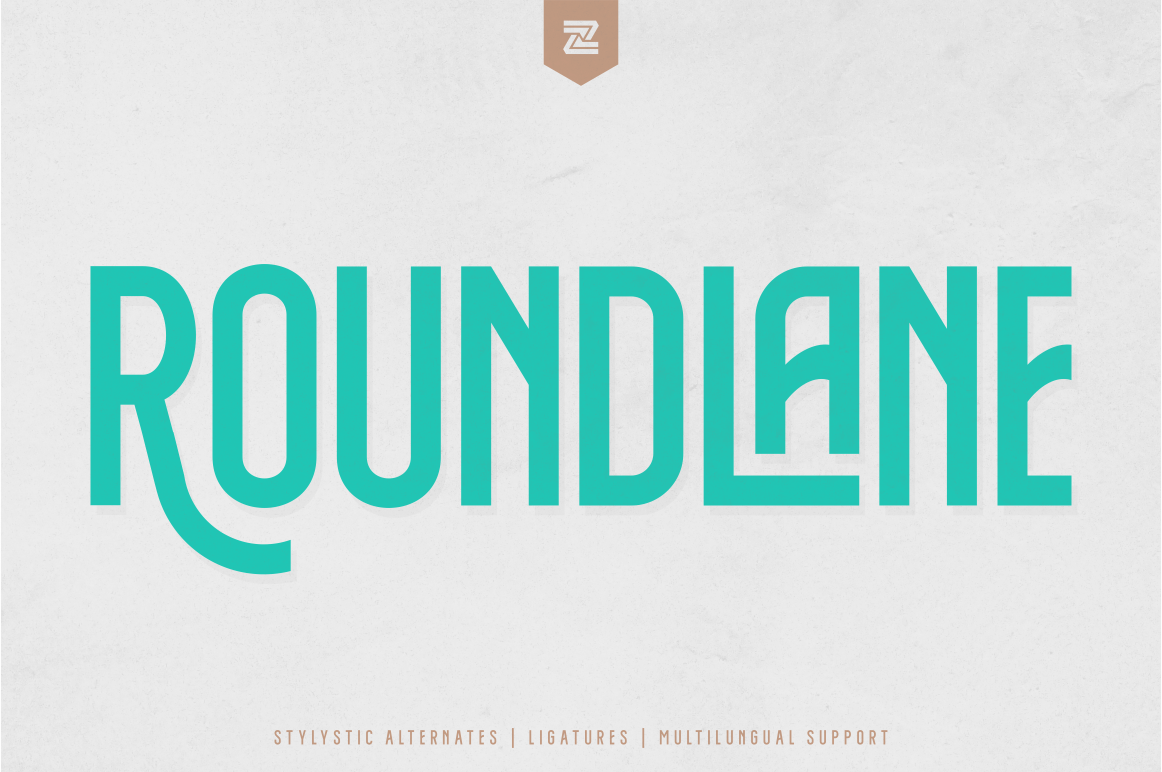
ROUNDLANE is a font inspired by retro badges antique labels.
with allcaps,multilingual support, alternates signs, numbers & punctuation.
Really fit for Band wordmark, album cover , video tittle, sticker, clothing brand name, t-shirt designs, badges designs, banner, flyer, etc.
Roundlane
by bagerich